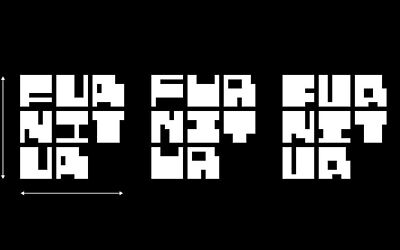
Metanart is a display pixel typeface with an authentic digital look. It supports Latin and Cyrillic languages.
Metanart perfectly fits for posters, games, illustrations, t-shirts and other awesome display purposes.